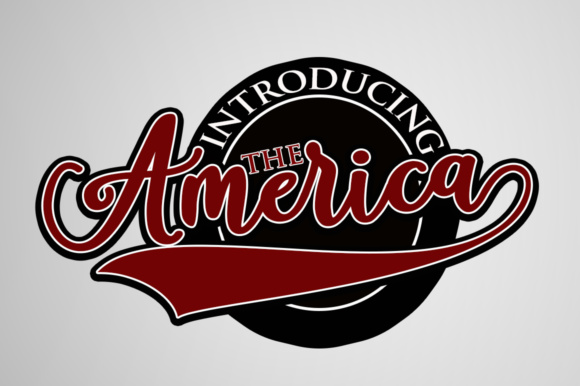
America Font
About America Font
The America is a fresh and modern script font. It has bold, striking letters which are perfect for branding, quotes, posters, logos, and more!